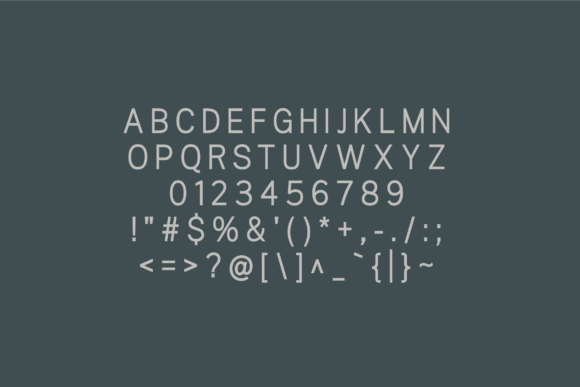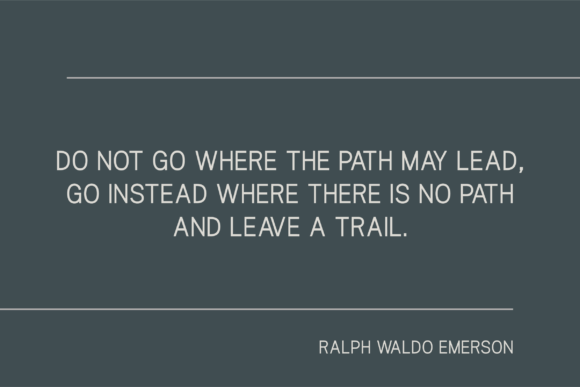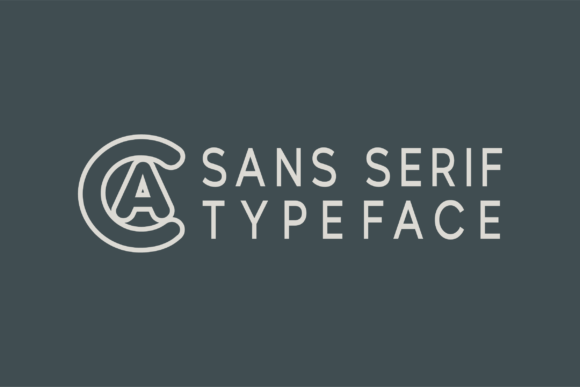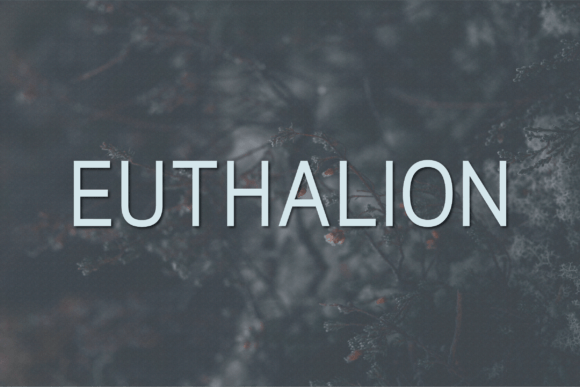
Introducing Euthalion Font: Elevate Your Designs with Exquisite Elegance
In the realm of typography, few fonts manage to capture the essence of modern sophistication as effortlessly as Euthalion. This stunning sans serif font is the epitome of refined elegance, designed to transform your text-based projects into masterpieces of cinematic allure. Whether you’re a designer, craftsperson, or simply an enthusiast of beautiful typography, Euthalion promises to redefine the visual narrative of your creative endeavors.
The Essence of Euthalion: A Premium Typographic Experience
Euthalion boasts an impressive suite of typographic elements, including a comprehensive set of upper-case characters, numbers ranging from 0 to 9, and a diverse array of punctuation marks and symbols. This extensive character set ensures that Euthalion is not just a font, but a versatile tool capable of adapting to a multitude of design applications. From the intricate details of logos and branding to the more expansive layouts of magazines and advertisements, Euthalion brings a level of sophistication that is hard to match.
Versatility Unleashed: Diverse Applications of Euthalion
One of the standout features of Euthalion is its incredible versatility. This font is not confined to a single use case; rather, it is designed to excel across a broad spectrum of creative projects. Here are a few examples of how Euthalion can elevate your designs:
- Logos and Branding: Inject a touch of class and professionalism into your brand identity with Euthalion’s clean lines and elegant curves.
- Weddings and Events: Create inviting and sophisticated wedding invitations, menus, and decor with Euthalion’s refined charm.
- Customized Quotes and Advertisements: Stand out in a crowded digital landscape with eye-catching quotes and ads that exude elegance and poise.
- Quality Prints and Magazines: Elevate the typographic experience of your high-end magazines, brochures, and print materials with Euthalion’s premium feel.
The Cinematic Landscape of Euthalion
Euthalion is more than just a font; it’s an experience. Its sleek design and sophisticated aesthetic are crafted to bring a cinematic quality to your text, making every project feel like a high-end production. When you choose Euthalion, you’re not just selecting a typeface; you’re opting for a visual narrative that commands attention and inspires emotion.
Why Choose Euthalion?
In a world where first impressions are everything, Euthalion offers a distinct advantage. Here are a few reasons why designers and craftspersons are gravitating towards this exquisite font:
- Unique Elegance: Euthalion’s distinctive design sets it apart from more common fonts, ensuring your projects stand out.
- High Versatility: From digital platforms to print media, Euthalion adapts seamlessly to various mediums.
- Premium Aesthetic: Achieve a high-end look without the complexity of custom design.
Euthalion is not just a font; it’s a statement. It’s a declaration of elegance, sophistication, and a commitment to quality. By incorporating Euthalion into your design toolkit, you’re equipping yourself with the means to transform any project into a visually stunning masterpiece. Whether you’re aiming to create a lasting impression with a logo, evoke emotion through a quote, or simply elevate the typography of your magazine, Euthalion is the perfect choice. Immerse yourself in the exquisite elegance of Euthalion and discover a new dimension of creative possibility.